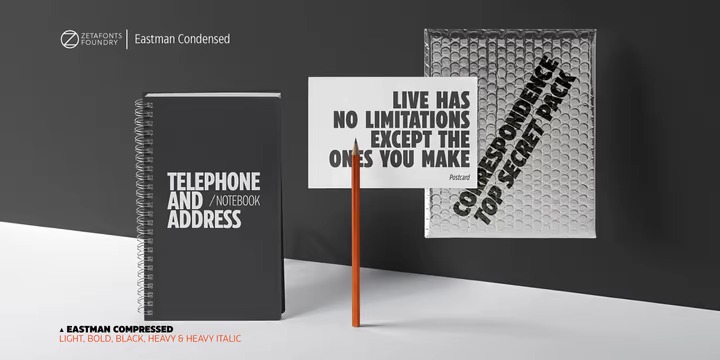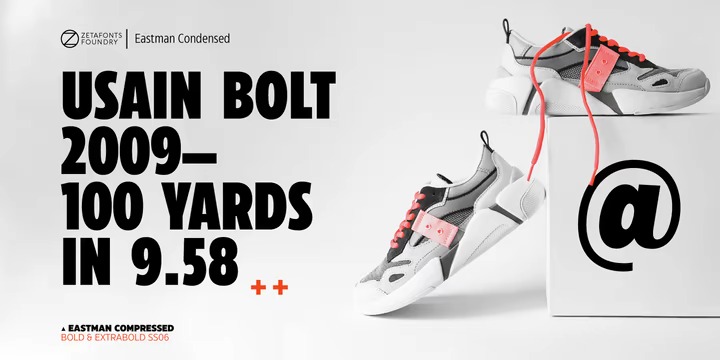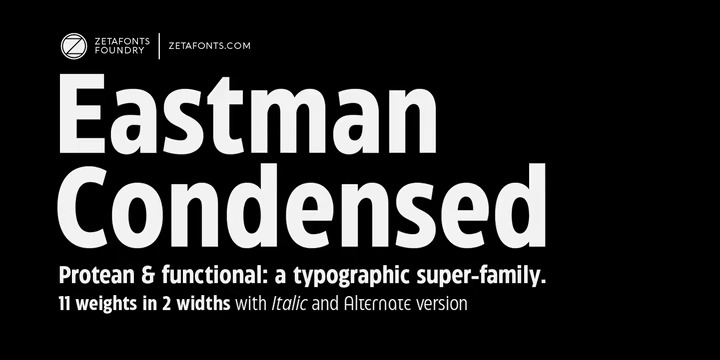
Eastman Condensed Font Family
Eastman Condensed Sans Serif Font
This is sans font family that created in a way that give an ease-looking, close to casual typeface. Designed in 2020 for Zetafonts by Francesco Canovaro and Andrea Tartarelli with help from Solenn Bordeau and Cosimo Lorenzo Pancini, the original Eastman typeface family was conceived as a geometric sans workhorse family developed for maximum versatility both in display and text use. The original wide weight range has been complemented with three more additional widths, to give you maximum control over the appearance of text in your page. While Eastman Compressed and Eastman Condensed behave as space-saving condensed families, Eastman Grotesque adapts the family design style to humanist proportions. All share a solid monolinear design and a tall x-height that makes body text set in Eastman extremely readable on paper and on the screen.